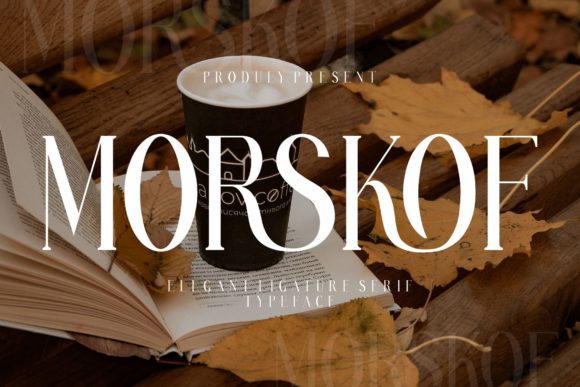
Prepare to be captivated by the exquisite Morskof Font, an extraordinary serif typeface that exudes elegance and distinction. Its tall, slender stature and meticulously crafted curves evoke a sense of sophistication that will elevate your designs to new heights.
Morskof Font is meticulously PUA encoded, ensuring effortless access to its full repertoire of glyphs and swashes. Unleash your creativity and let your imagination soar as you effortlessly incorporate this versatile font into your projects.
Whether you're crafting captivating logos, alluring fashion designs, or enchanting invitations, Morskof Font seamlessly adapts to your vision. Its timeless appeal lends itself effortlessly to a myriad of applications.
Immerse yourself in the world of typography and experience the transformative power of Morskof Font. Its graceful strokes will captivate your audience, leaving a lasting impression that lingers in their minds.